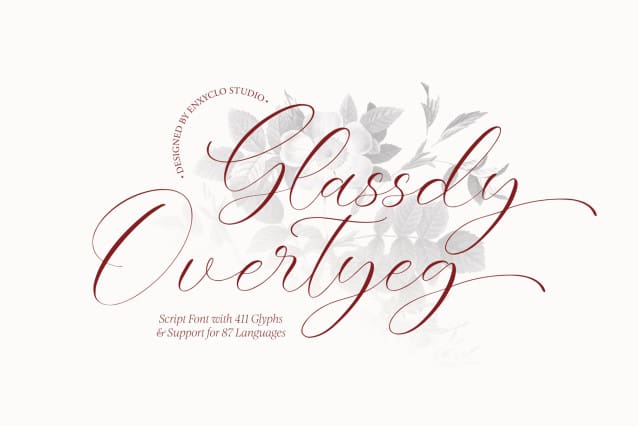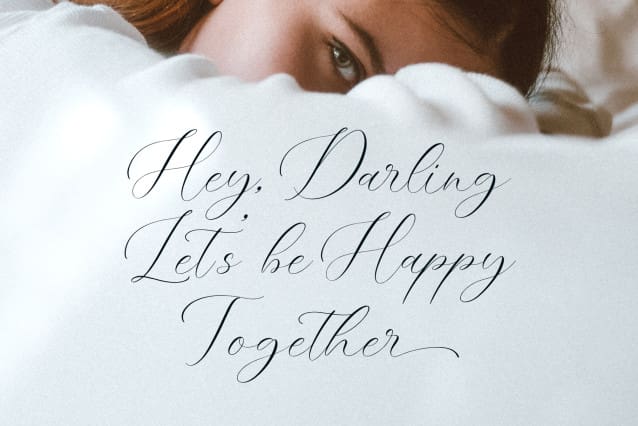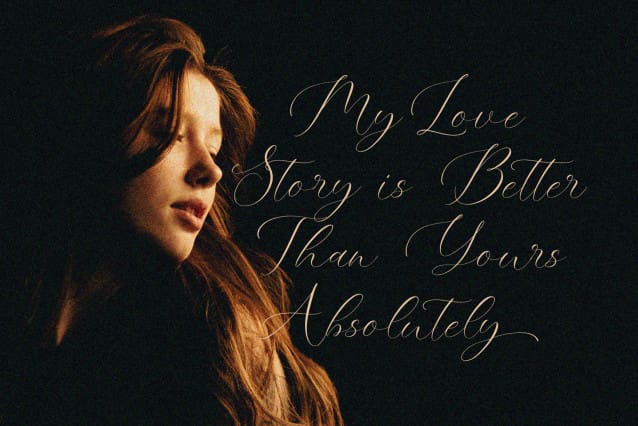
NCL Glassdy Overtyeg Font
NCL GLASSDY OVERTYEG FONT is a modern script font. Masterfully designed to become a true favorite, this font has the potential to bring each of your creative ideas to the highest level! It was purposely crafted to be used in large point sizes, although it doesn’t lose its magic in small point sizes. NCL Glassdy Overtyeg is perfect for wedding, headline, billboard, magazines, website, titles, poster, branding, and logos. No matter the topic, this font will be an incredible asset to your fonts’ library, as it has the potential to elevate any creation. With this beautiful font, absolutely you can make your project stand out from the rest.